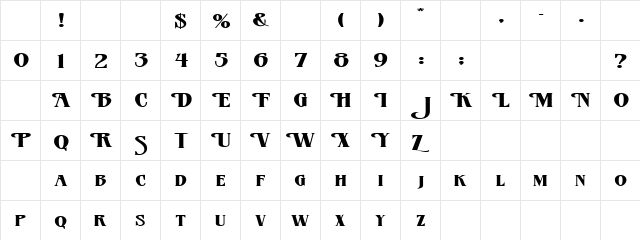
FZ JAZZY 23 EX Normal
Design Context for FZ JAZZY 23 EX
FZ JAZZY 23 EX is a composed and adaptable typeface that performs quietly and consistently across a wide range of design contexts.